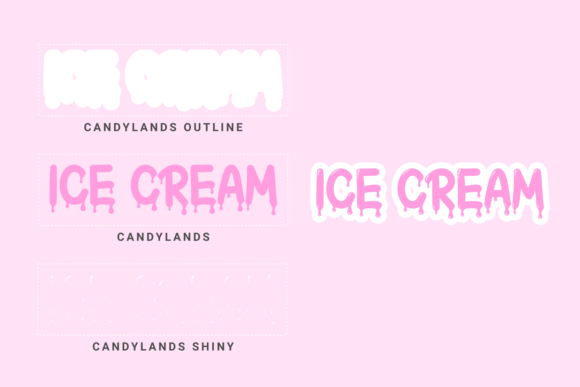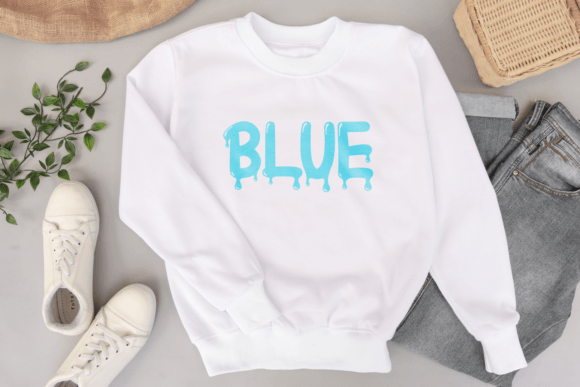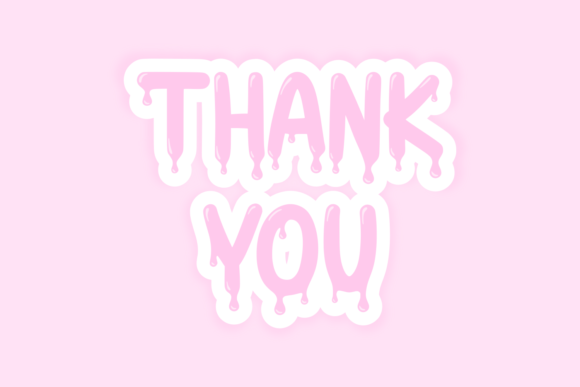
A Sweet Addition to Your Designs: Candy Lands Font
Have you ever stared at a blank canvas, feeling like the perfect font is just out of reach? You envision a whimsical, childlike charm, but nothing seems quite right. That’s where the magic of Candy Lands Font comes in – a delightful display font designed to bring a smile to your creations.
Candy Lands Font is more than just a pretty face; it’s a tool for designers looking to infuse their work with a sense of wonder and playfulness. Whether you’re crafting a cartoon, designing a children’s game, or simply want to add a touch of sweetness to your project, this font is sure to hit the spot.
Candy Lands Font Key Features
- Font Family: Candy Lands Font is a sans-serif font family designed to resemble colorful candies.
- Size: The font family comes in 6 different weights, ranging from Thin (100) to Black (900), allowing for versatility in design applications.
- Resolution: Designed for high-resolution displays, making it suitable for use in digital media, such as web design, mobile apps, and video games.
- Unique Characteristics: Features a unique, hand-drawn style with bold lines and vibrant colors, reminiscent of classic candies.
- Character Set: Includes a comprehensive character set, including Latin, Cyrillic, and Greek alphabets, as well as various symbols and punctuation marks.
Candy Lands Font Review
Overall, I’m quite impressed with the Candy Lands Font. It’s a fun, playful font that’s sure to bring a smile to the faces of those who see it ✨. The font’s whimsical design makes it perfect for use in children’s books, party invitations, and other festive materials.
Here are some of the things that I think work well:
- The font’s bold and bright color palette adds to its playful feel ✨.
- The custom illustrations that come with the font add a fun and unique touch.
- The font is highly customizable, allowing users to easily adjust the size, color, and spacing of the text.
However, there are a few limitations to consider ⚠️:
- The font may not be suitable for use in formal or professional settings.
- The custom illustrations may not be compatible with all operating systems or devices.
- The font’s bold design may be difficult to read in smaller sizes or at a distance.
Overall, I think the Candy Lands Font is a great addition to any designer’s toolkit. It’s perfect for use in fun and playful projects, and the custom illustrations add a unique touch that’s sure to set it apart from other fonts.
The Candy Lands Font is ideal for:
- Children’s book covers and illustrations
- Candy and confectionery branding
- Whimsical and playful design projects